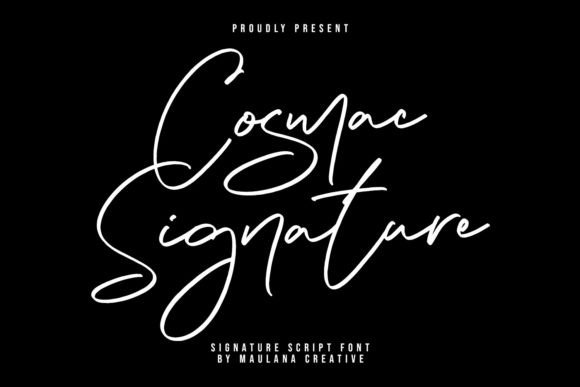
Step into the realm of captivating and awe-inspiring typography with Cosmac Signature Font, a script font family that transcends boundaries. Crafted by the visionary Maulana Creative, Cosmac Signature is not just a font; it's an artistic masterpiece that will ignite your creative spark. With its bold sharp edges, playful characters, and a sprinkle of ligatures and alternates, Cosmac promises to elevate your designs to extraordinary heights.
Unleash your imagination and explore the boundless possibilities that await you with Cosmac. Whether you're crafting a captivating logo, engaging social media posts, or designing striking movie or book titles, Cosmac will effortlessly elevate your work to new levels of brilliance. Its versatility extends beyond mere headlines; Cosmac shines as a secondary font, harmonizing flawlessly with sans or serif fonts to create visually captivating compositions.
Immerse yourself in a world of multilingual expression, as Cosmac supports over 100 languages, ensuring your message resonates across borders and cultures. This remarkable font is the perfect companion for designers, creatives, and visionaries seeking to make a lasting impact. Let Cosmac be your muse, inspiring you to create stunning designs that captivate and leave an indelible mark on your audience.
With Cosmac Signature Font, the possibilities are limitless. Embrace the power of creativity and transform your designs into works of art. Let Cosmac be your guide as you embark on a typographic adventure, leaving your audience spellbound and yearning for more.